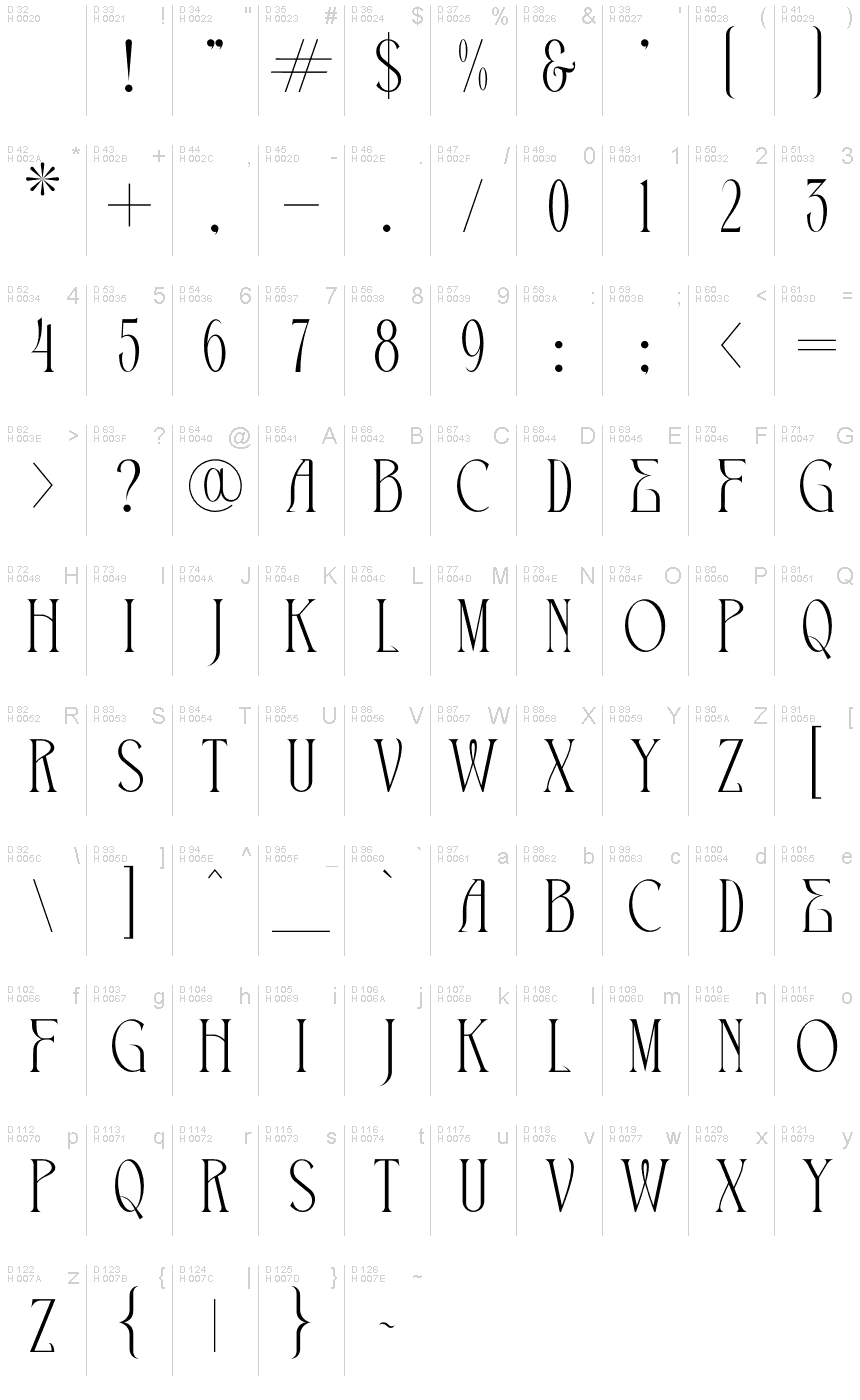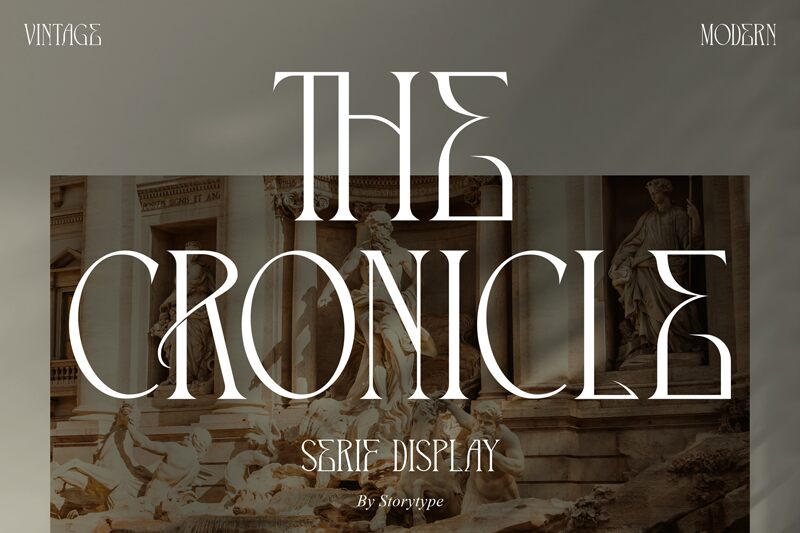
THE CRONICLE
THE CRONICLE, designed by Storytype Studio, is a captivating display font that exudes retro charm with its light weight and condensed width. Perfect for vintage-inspired projects, this font adds a touch of nostalgia to logos, posters, and packaging designs. Its sleek lines and stylized serifs make it ideal for creating eye-catching headlines or titles in magazines, book covers, or movie posters. Whether you're working on a 1920s-inspired art deco project or aiming to bring an old-school vibe to your modern design, THE CRONICLE is the go-to font for creating timeless masterpieces.